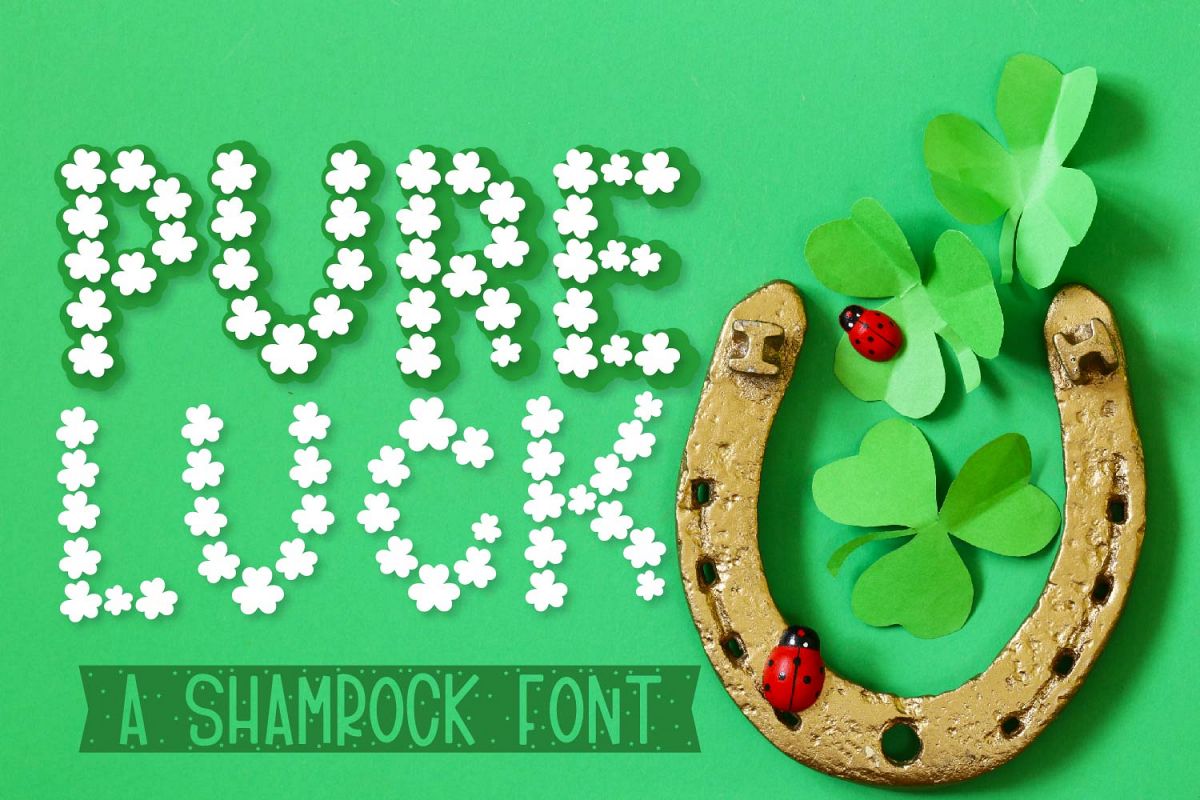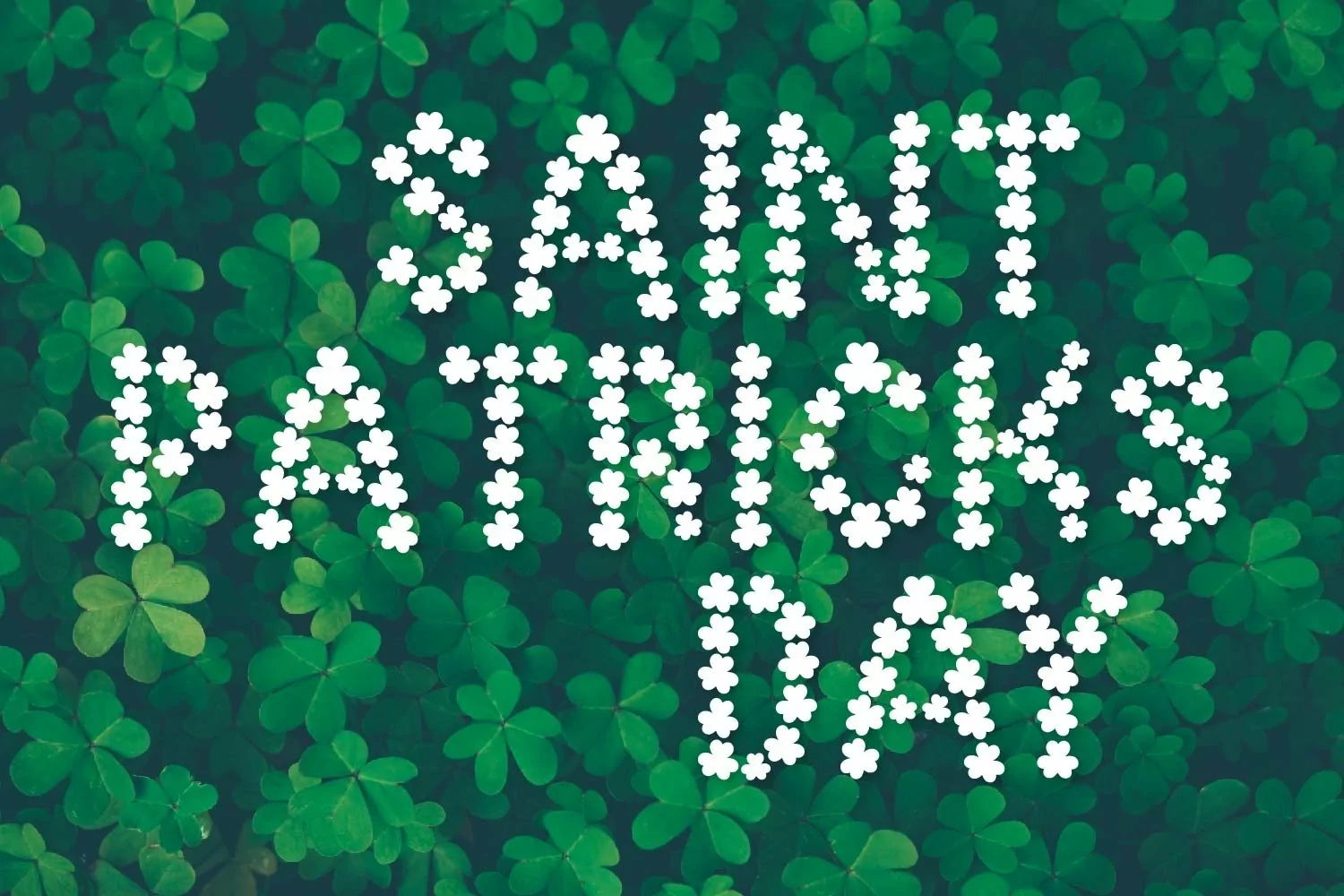
Pure Luck - A Shamrock Font Duo
Fine the "shamrock" and "shadow" version on font 1
and on font 2 there is a merged version as well. All fonts are one color fonts.